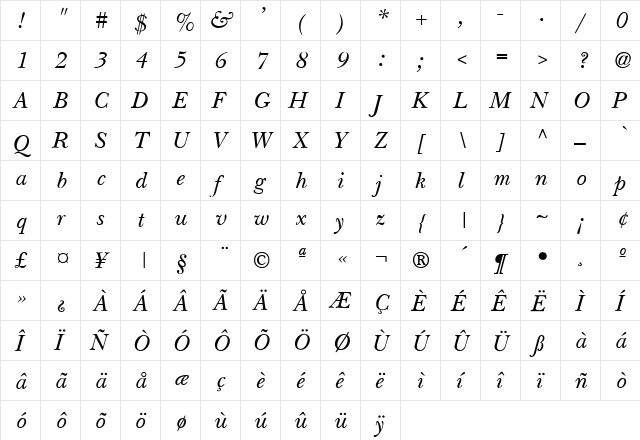
DeChant Italic Regular
Design Context for DeChant Italic Typeface
DeChant Italic is a composed and adaptable typeface that performs quietly and consistently across a wide range of design contexts. Its italic angle brings a sense of urgency and motion to the letterforms.
Pro Tip: Use DeChant Italic for emphasis, pull quotes, and subheadings where its slanted energy can add rhythm to the layout.